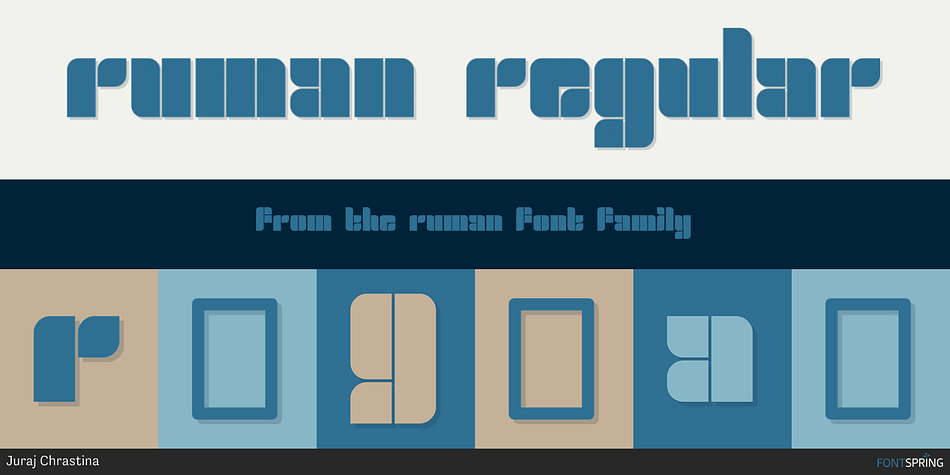
RUMAN REGULAR
Ruman is a display and stencil font published by Juraj Chrastina.
Ruman is a decorative and display typeface suitable for logotypes and posters.
Ruman is a decorative and display typeface suitable for logotypes and posters. It’s another very simple origami style font working well especially with short words, that look almost like an abstract picture.
Foundry Juraj Chrastina
Styles Display, Stencil